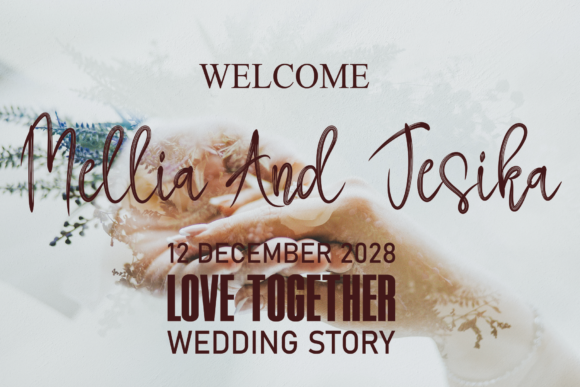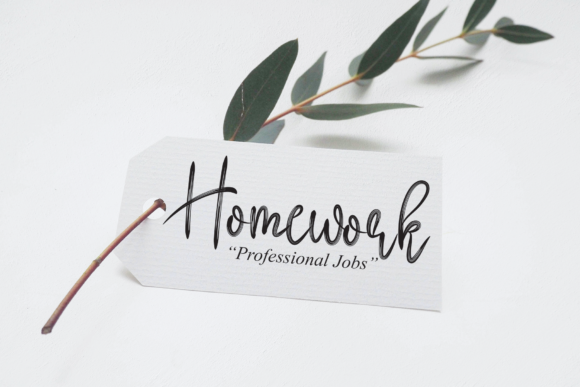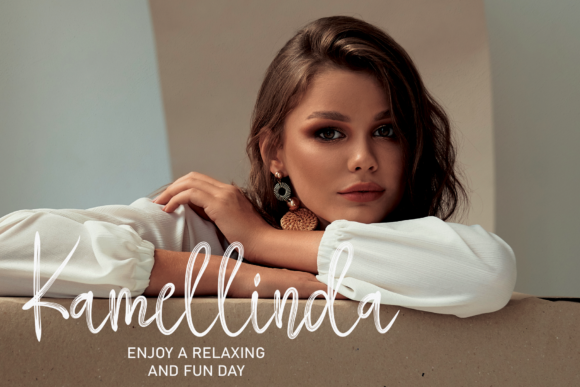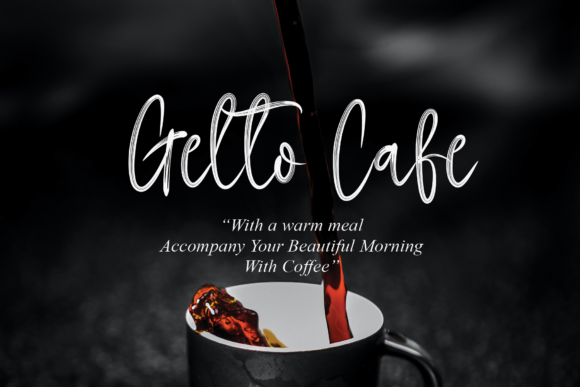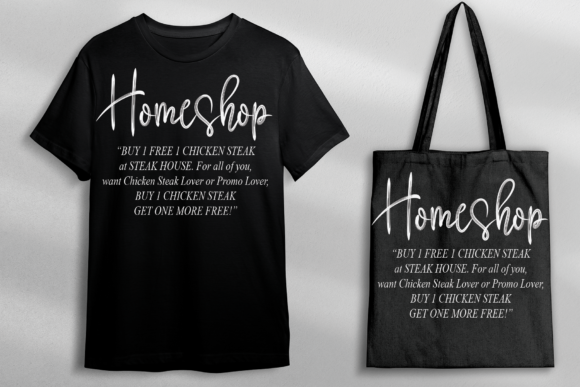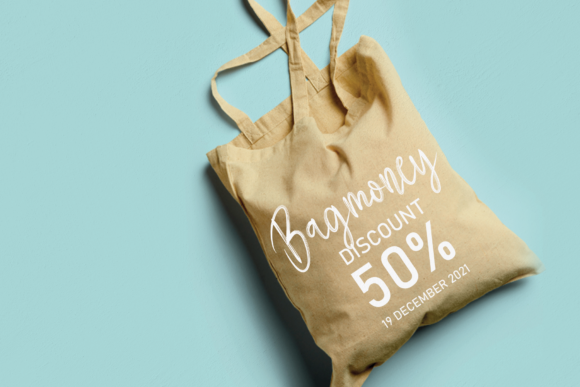
The Perfect Script for a New Chapter
As a designer, have you ever been browsing through fonts, searching for the perfect script to add a touch of elegance to your next project? You know that feeling when you stumble upon a font that just makes everything feel right? That’s exactly what happens when you discover the Back to School Font.
This beautiful, brushed script font was crafted to bring a sense of refinement and sophistication to your designs. With its delicate lines and soft curves, Back to School Font is perfect for creating invitations, greeting cards, or any other project where you want to convey a sense of class and style.
Whether you’re a seasoned designer or just starting out, the Back to School Font is an invaluable addition to your toolkit. Its versatility and timeless appeal make it a valuable asset for any creative project, and its unique character will help you stand out from the crowd.
Back to School Font Key Features
- Font Family: A custom-designed font, created specifically for educational and back-to-school themes.
- Unique Characteristics: Features a playful, cursive design with a mix of uppercase and lowercase letters, making it perfect for adding a touch of whimsy to educational materials.
Back to School Font Review
At first glance, the Back to School Font seems to be a fun, playful font that captures the essence of a carefree summer turning into a new school year. ✨ The font’s bright colors and bubbly style immediately evoke a sense of nostalgia and excitement.
Here are some aspects where the font truly shines:
- The font’s versatility is impressive, as it can be used for a wide range of applications, from promotional materials to social media graphics.
- The font’s customization options are plentiful, allowing users to adjust the color palette, font size, and style to fit their specific needs.
- The font’s high-quality design makes it suitable for both digital and print materials.
- The font may appear too childish or immature for some users, which could be a concern for more professional applications.
- The font’s font weight options are limited, which may not be ideal for users who need to create bold or italic text.
- The font may not be as readable in smaller font sizes, which could be a concern for users who need to use the font in print materials.
Overall, the Back to School Font is a great choice for users who need a fun, playful font for casual applications. However, users who require a more professional or versatile font may want to consider other options.
The “Back to School Font” is ideal for creating educational materials, such as:
- School flyers and brochures
- Lesson plans and worksheets
- Teacher newsletters and announcements
- Back to school-themed social media graphics
Tips for Getting the Most Out of the Font
For best results, pair the “Back to School Font” with a bold and playful color scheme. You can also experiment with different font sizes and arrangements to create visually appealing designs.